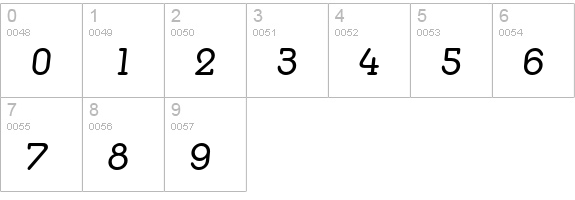
MediaSerifEF-RegularItalic font is a stylish and versatile typeface that exudes elegance and sophistication. With its sleek italic design, this font is perfect for adding a touch of sophistication to any project. The graceful curves and slanted angles of MediaSerifEF-RegularItalic make it ideal for use in headings, titles, and other display purposes. What sets MediaSerifEF-RegularItalic font apart is that it is available for free download at FontsMarket.com. This means that you can easily access and use this beautiful font for your personal or commercial projects without any cost. Whether you're designing a website, creating promotional materials, or working on a branding project, MediaSerifEF-RegularItalic font is a fantastic choice that will elevate your design to the next level. Download this exquisite font today and start adding a touch of elegance to your projects.